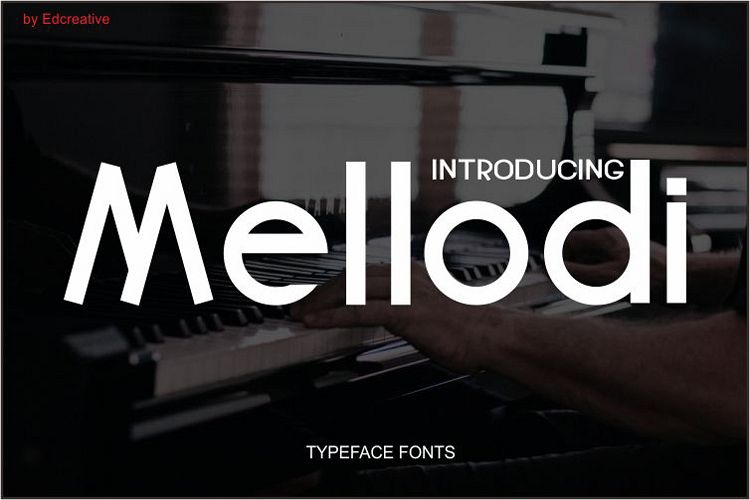
Mellodi
Mellodi, comes with uppercase and lowercase letters
This font is perfect for quotes, headings, blogs, logos, invitations and more!
This font does include accent characters.